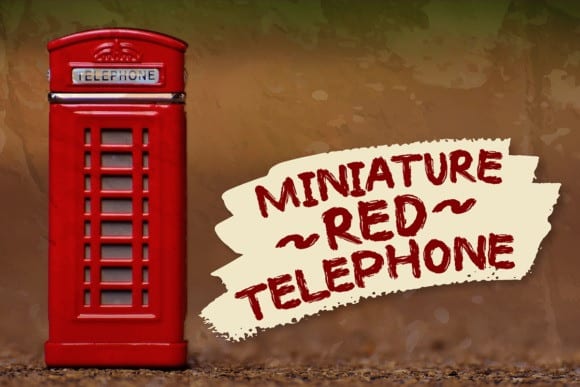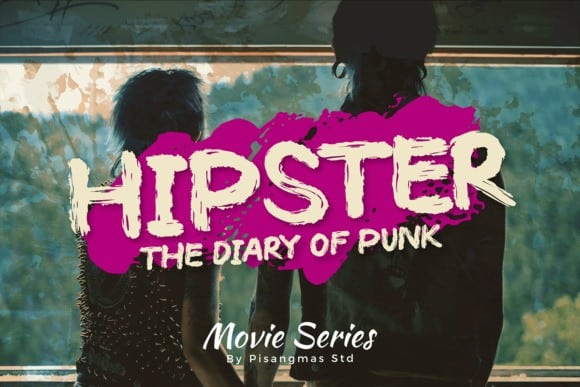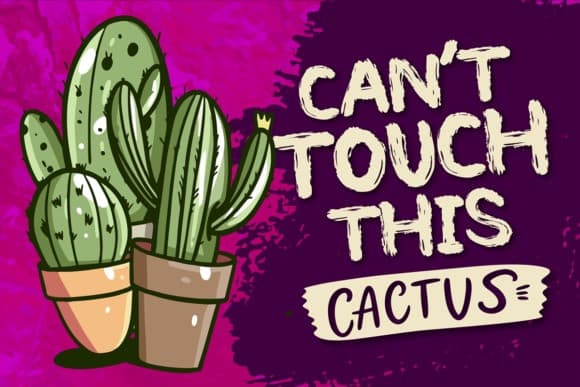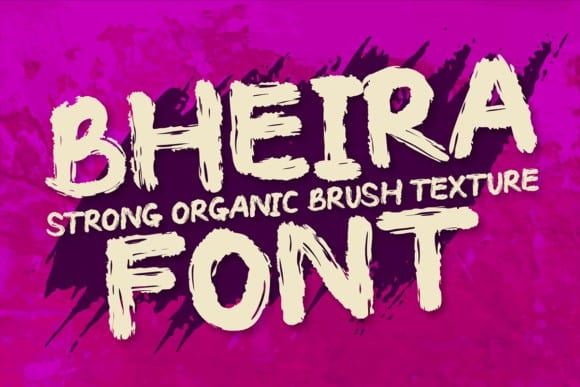
Bheira Brush Font
Bheira Brush Font is a hard display and rock & roll font for music concert events. Made from font designer named brithostype. It’s a bold and chunky lettered display font, created with the help of a brush pen. Add this font to your creative ideas and notice how it will make them stand out!
Bheira Brush Font is perfect for branding projects, logo, wedding designs, social media posts, advertisements, product packaging, product designs, label, photography, watermark, invitation, stationery and any projects that need handwriting taste.